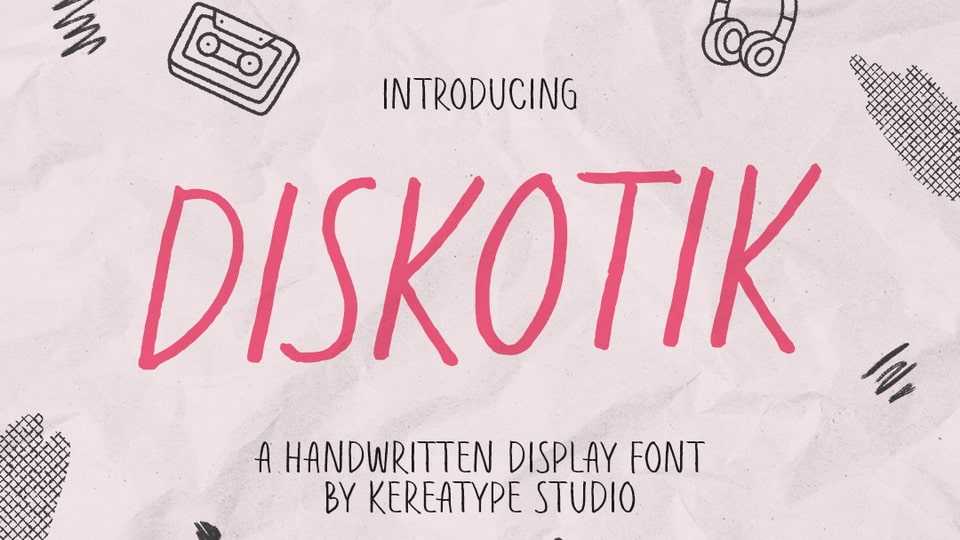
Download Diskotik font, a handwritten display typeface that brings a playful, energetic, and expressive vibe to your designs with its casual yet bold strokes.
Designer: Kereatype Studio